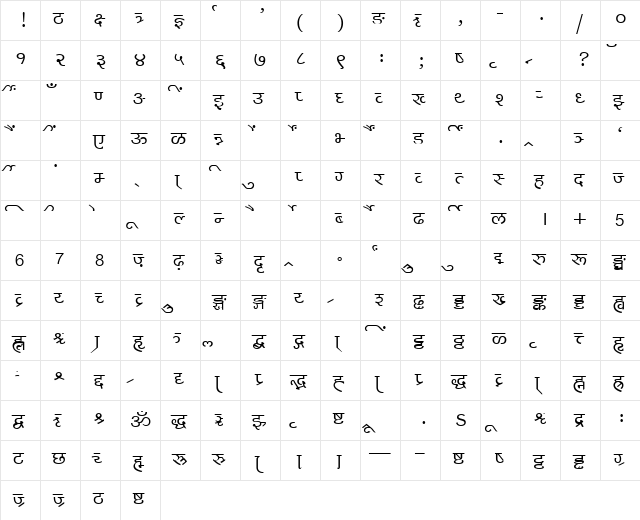
AkrutiDevPratap Normal
Design Context for AkrutiDevPratap Typeface
AkrutiDevPratap is a composed and adaptable typeface that performs quietly and consistently across a wide range of design contexts.